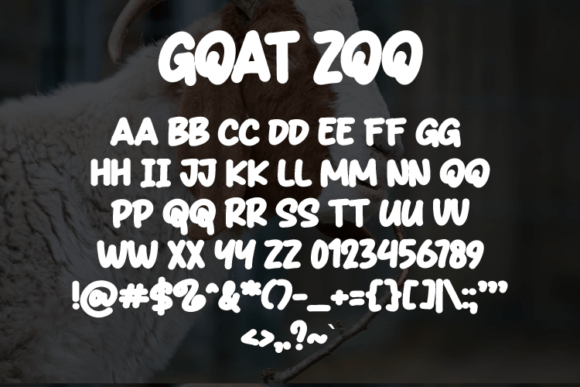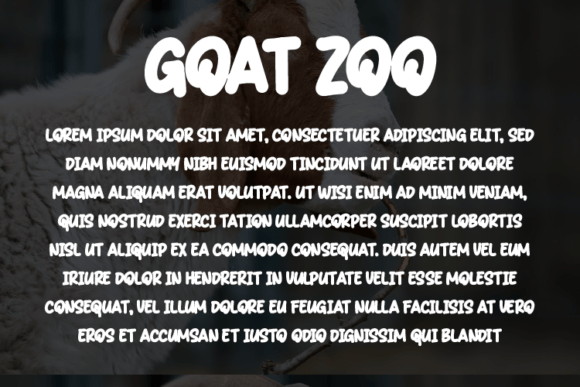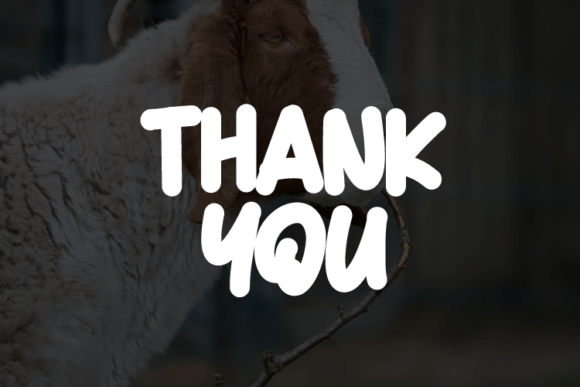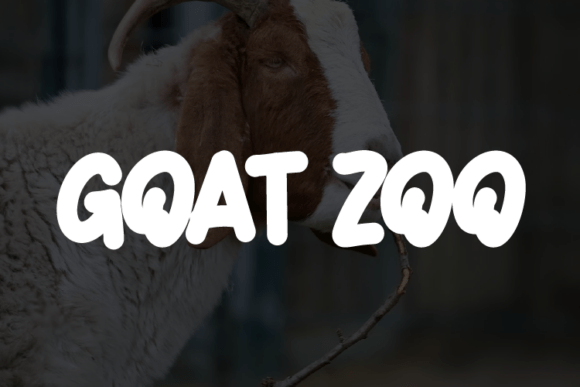
Introducing Goat Zoo Font: A Modern and Elegant Typeface for Designers and Crafters
Are you a designer or crafter looking for a modern and elegant typeface that offers flexibility and excellent readability across various media? Look no further than Goat Zoo Font, a stunning .otf (OpenType Font) file format that provides superior cross-platform compatibility. In this article, we’ll explore the features, benefits, and uses of Goat Zoo Font, making it an ideal choice for all design software and office applications.
What is Goat Zoo Font?
Goat Zoo Font is a contemporary typeface designed to provide a perfect blend of style and functionality. Its sleek and elegant design makes it perfect for a wide range of applications, from branding and advertising to packaging and digital media. With its .otf file format, Goat Zoo Font ensures seamless compatibility across various platforms, including Windows and macOS, making it an excellent choice for designers and crafters worldwide.
Key Features of Goat Zoo Font
• Modern and Elegant Design: Goat Zoo Font boasts a sleek and sophisticated design, perfect for creating stunning visual content that captures attention.
• Excellent Readability: The font’s clear and legible design ensures excellent readability across various media, including print, digital, and web applications.
• Flexible and Versatile: Goat Zoo Font can be used for a wide range of applications, from branding and advertising to packaging and digital media.
Benefits of Using Goat Zoo Font
Goat Zoo Font offers numerous benefits for designers and crafters, including:
• Time-Saving: With its excellent readability and flexibility, Goat Zoo Font saves designers and crafters time and effort in creating stunning visual content.
• Professionalism: Goat Zoo Font’s modern and elegant design adds a touch of professionalism to any design project, making it perfect for businesses and individuals looking to create a lasting impression.
Use Cases for Goat Zoo Font
Goat Zoo Font is perfect for a wide range of applications, including:
• Branding and Advertising: Create stunning logos, billboards, and ad campaigns with Goat Zoo Font’s modern and elegant design.
• Packaging Design: Use Goat Zoo Font to create eye-catching packaging designs that stand out on store shelves.
• Digital Media: Goat Zoo Font is perfect for creating engaging digital content, including social media graphics, blog posts, and website designs.
• Office Applications: Use Goat Zoo Font in office applications, such as Microsoft Office and Google Docs, to create professional-looking documents and presentations.
How to Use Goat Zoo Font
• Experiment with Font Sizes: Goat Zoo Font looks great in various font sizes, from small to large.
• Pair with Other Fonts: Pair Goat Zoo Font with other fonts to create stunning visual content.
• Adjust Letter Spacing: Adjust letter spacing to create a unique and personalized look.
Font Name Goat Zoo Font
Author Eric Kusuma
Goat Zoo Font is a modern and elegant typeface that offers flexibility and excellent readability across various media. With its .otf file format and superior cross-platform compatibility, it’s an ideal choice for designers and crafters worldwide. Whether you’re creating branding and advertising materials, packaging designs, or digital content, Goat Zoo Font is the perfect choice. Download Goat Zoo Font today and take your design projects to the next level!